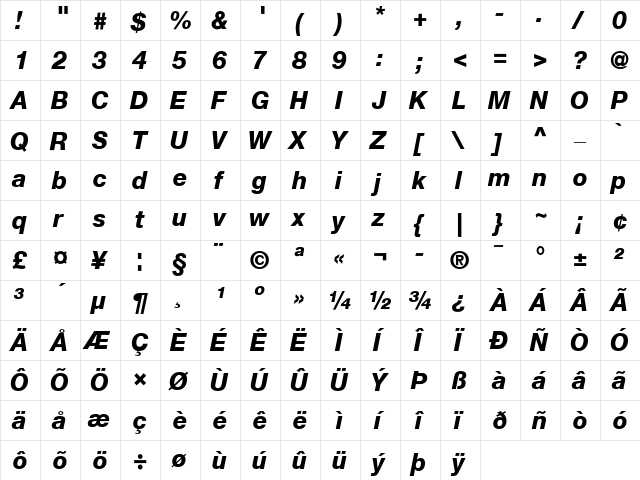
Helvetica 65 Medium Bold Italic Font Preview
Design Context for Helvetica 65 Medium Typeface
Helvetica 65 Medium takes a measured approach to typography — its balanced proportions and neutral character make it a reliable workhorse for both digital and print work. The dynamic lean of this cut emphasises speed and emphasis in any layout. The heavy weight commands attention and anchors typographic hierarchies.
Pro Tip: Use Helvetica 65 Medium for emphasis, pull quotes, and subheadings where its slanted energy can add rhythm to the layout.